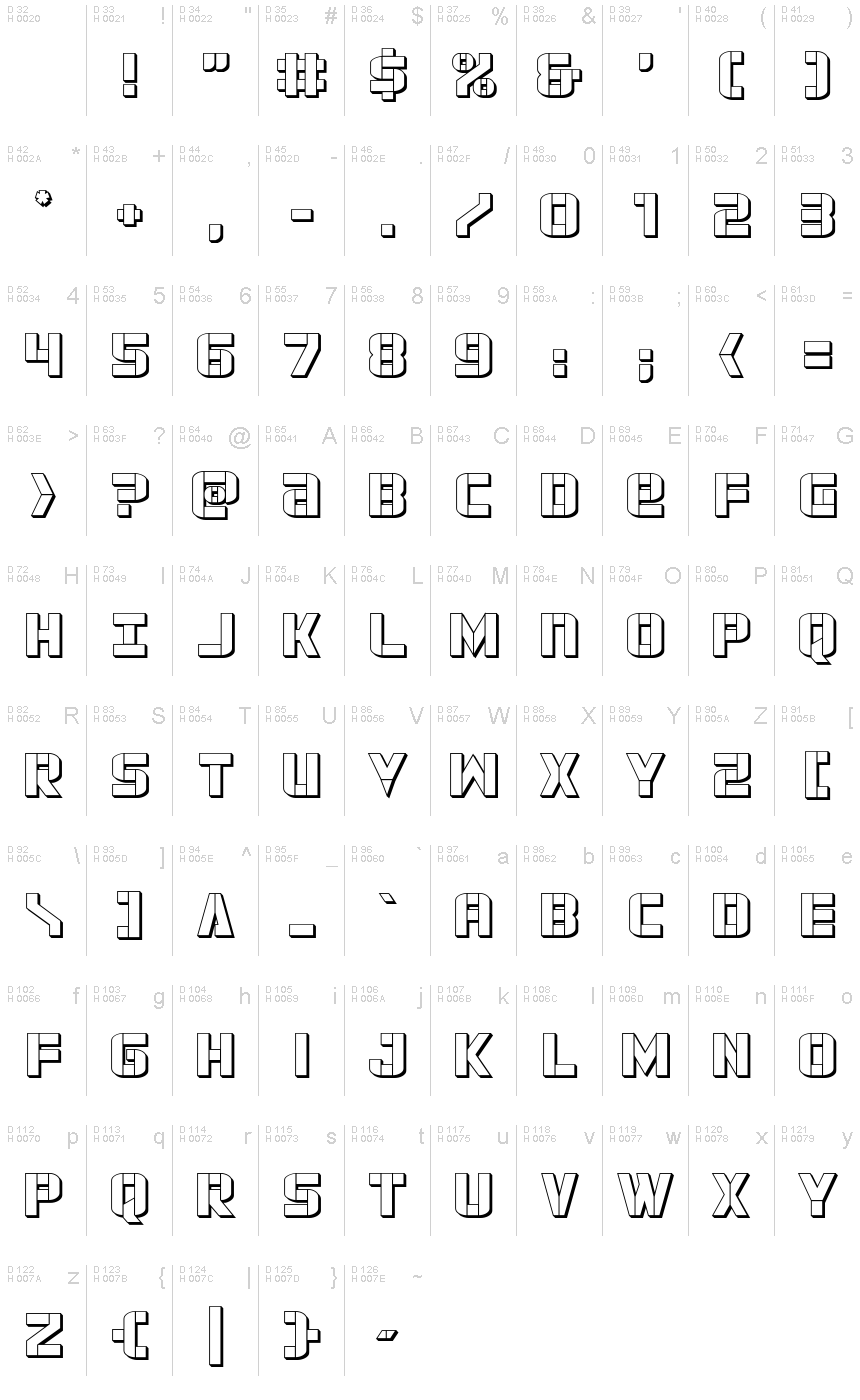
Force Commander 3D
The Force Commander 3D font exudes a bold, military-inspired aesthetic, commanding attention with its striking three-dimensional effect. Crafted by Iconian Fonts, this display typeface boasts a rugged, authoritative presence, perfect for projects requiring a strong, impactful visual identity. The robust letterforms and defined edges lend an air of power and determination, while the overall design evokes a sense of discipline and unwavering resolve.
This font's versatility shines through, making it a compelling choice for a range of applications. From military-themed branding and packaging to action-driven video game interfaces, the Force Commander 3D font has the potential to elevate the visual impact of any project requiring a bold, attention-grabbing typographic treatment. Its distinctive style can also be effectively utilized in event posters, album covers, and editorial designs to create a memorable and visually striking aesthetic.